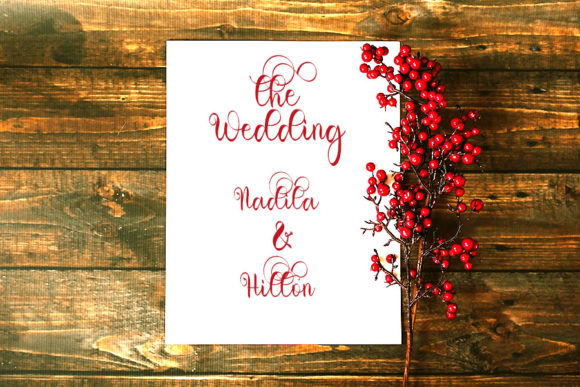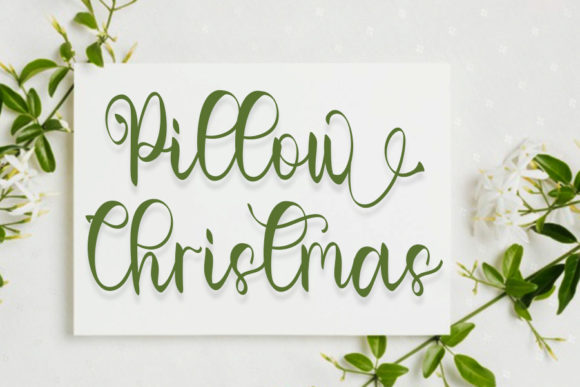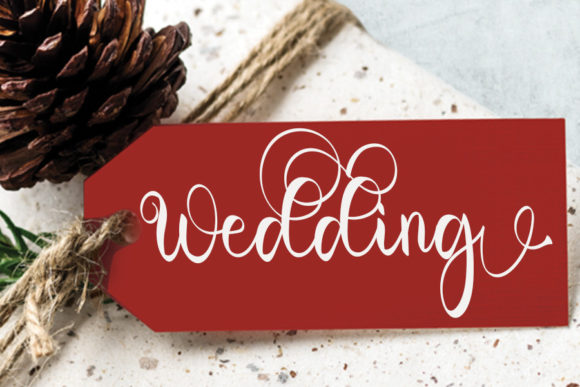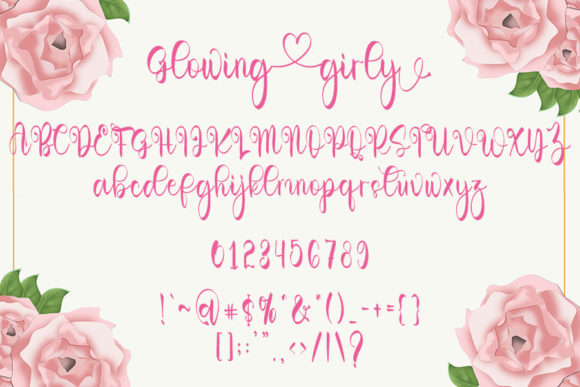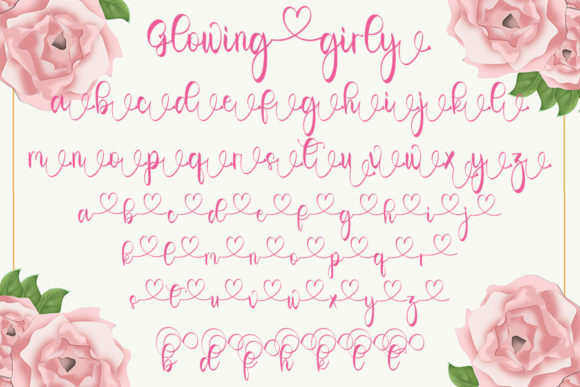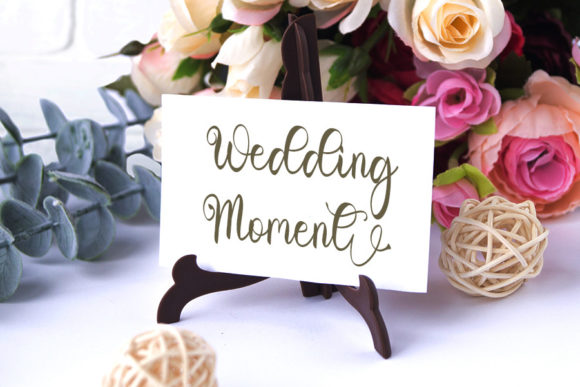
Introduction to Glowing Girly Font
As a designer, have you ever found yourself stuck in a creative rut, searching for that perfect font to elevate your project? I’m sure we’ve all been there. But what if I told you that I’ve discovered a font that will make your designs sparkle like diamonds? Say hello to the enchanting Glowing Girly Font, a romantic and sweet calligraphy typeface that’s sure to add a touch of luxury to any design project.
With its delicate, flowing characters that dance along the baseline, Glowing Girly Font is the perfect choice for designers who want to create high-quality, eye-catching designs that stand out from the crowd. And the best part? It’s free to download, making it an accessible design resource for creatives of all levels. Whether you’re working on a personal project or a commercial client, Glowing Girly Font is sure to bring a touch of magic to your work.
Key Features of Glowing Girly Font
- Large character set, including uppercase and lowercase letters, numbers, and special characters
- Perfect for designers, artists, and creatives working on feminine-themed projects, such as fashion, beauty, or lifestyle designs
Honest Review: Glowing Girly Font
I recently had the chance to download and test the Glowing Girly Font, a free download that’s gained popularity among designers. Overall, I was impressed with its high quality and potential uses in creative projects.
What works well: ✨ The font’s unique, cursive design makes it perfect for feminine or whimsical branding. It’s also available with a transparent background, which is a nice touch for designers who need a versatile design resource.
- Perfect for feminine or whimsical branding
Overall, I’d say the Glowing Girly Font is a great addition to any designer’s toolkit. While it may not be perfect, its unique design and high quality make it a valuable resource for creative projects. With a little experimentation, you can unlock its full potential and create some truly stunning designs.